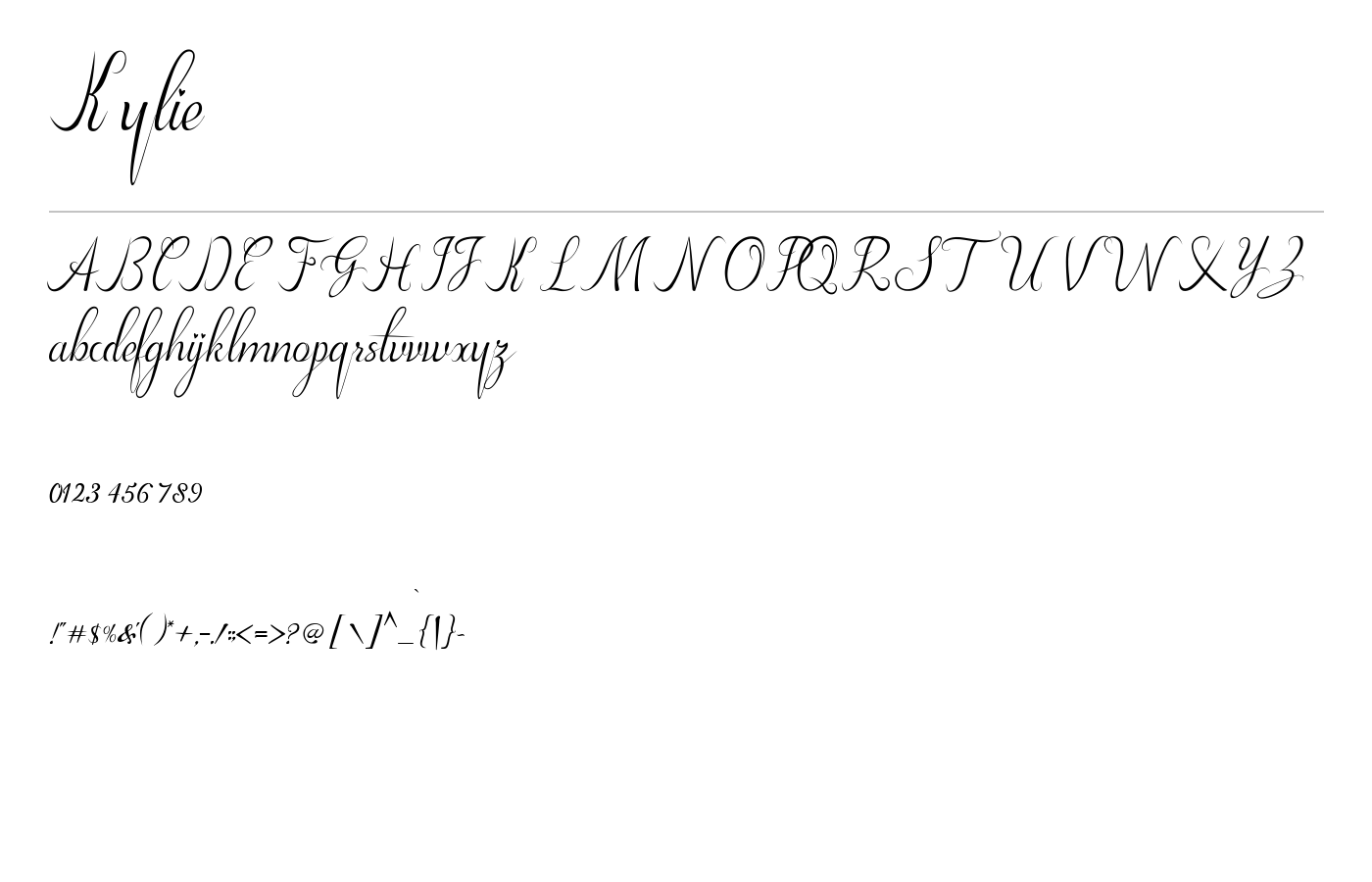
Kylie is an elegant, thin script font with high contrast strokes and delicate, flowing letterforms that evoke a sense of sophistication and grace. Its tall, slender characters and cursive style make it ideal for luxury branding, invitations, and feminine or romantic designs where a refined and stylish touch is desired. This font works beautifully in headlines and decorative text, adding charm and a personal, handwritten feel.
Kylie Font
About Kylie Font
| Font family | Kylie Font |